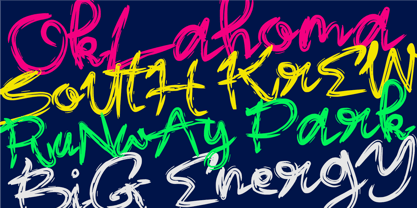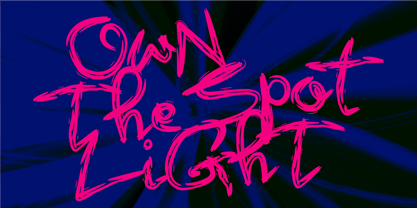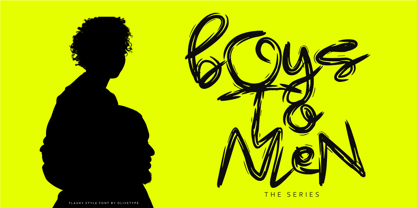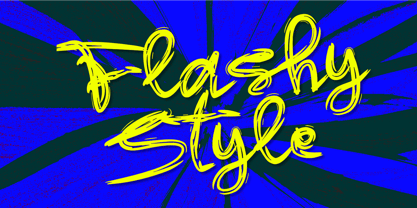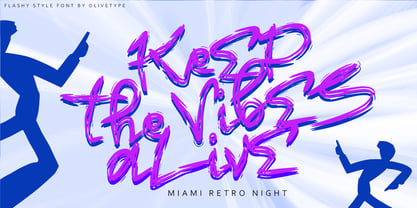
Flashy Style
por Olivetype
La familia tipográfica Flashy Style fue diseñada por Nurul Hidayani y publicada por Olivetype. Flashy Style contiene 1 estilos. Más información sobre esta familia
Flashy Style is a bold brush script font with energetic strokes, smooth curves, and a stylish handwritten feel. Designed to stand out, this font brings a modern urban vibe that works perfectly for logos, posters, branding, fashion projects, merchandise, social media, packaging, music covers, and cinematic titles. Its dynamic brush texture gives every design a lively and expressive personality, making your text look eye-catching, trendy, and full of attitude. Whether you’re creating streetwear branding, promotional graphics, or stylish headlines, Flashy Style adds a confident and vibrant touch to every project.
Diseñadores: Nurul Hidayani
Fundición: Olivetype